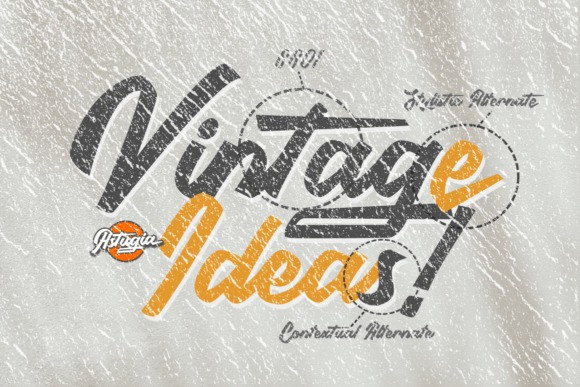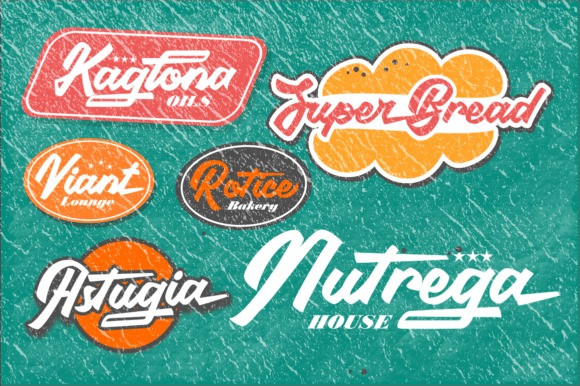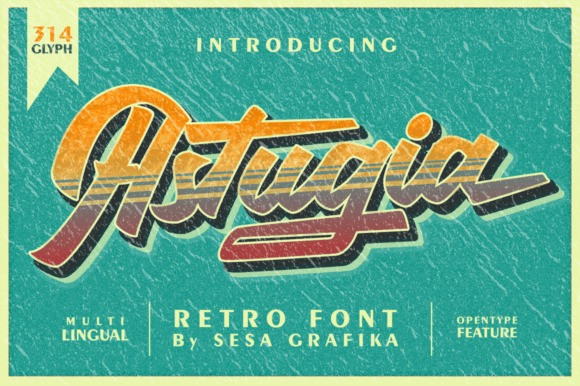
Astugia Font
Astugia Font is a retro script font with a sense of funk, fun, and free-spiritedness. It is perfect for projects that seek a nostalgic or vintage feel, such as retro-themed designs, party invitations, music album covers, or any creative work aiming vibrant atmosphere. It adds a touch of whimsy and personality to any text, capturing the carefree and bold spirit of the era it represents.